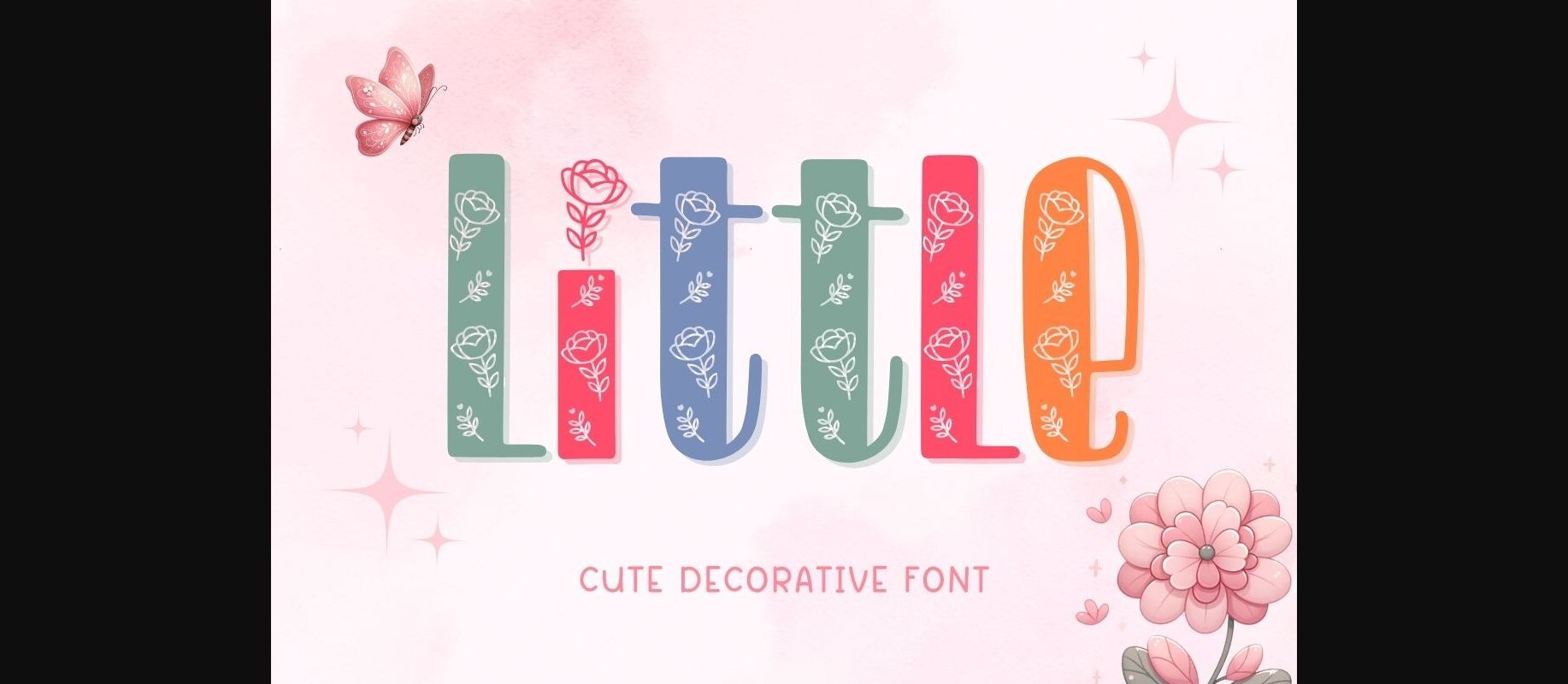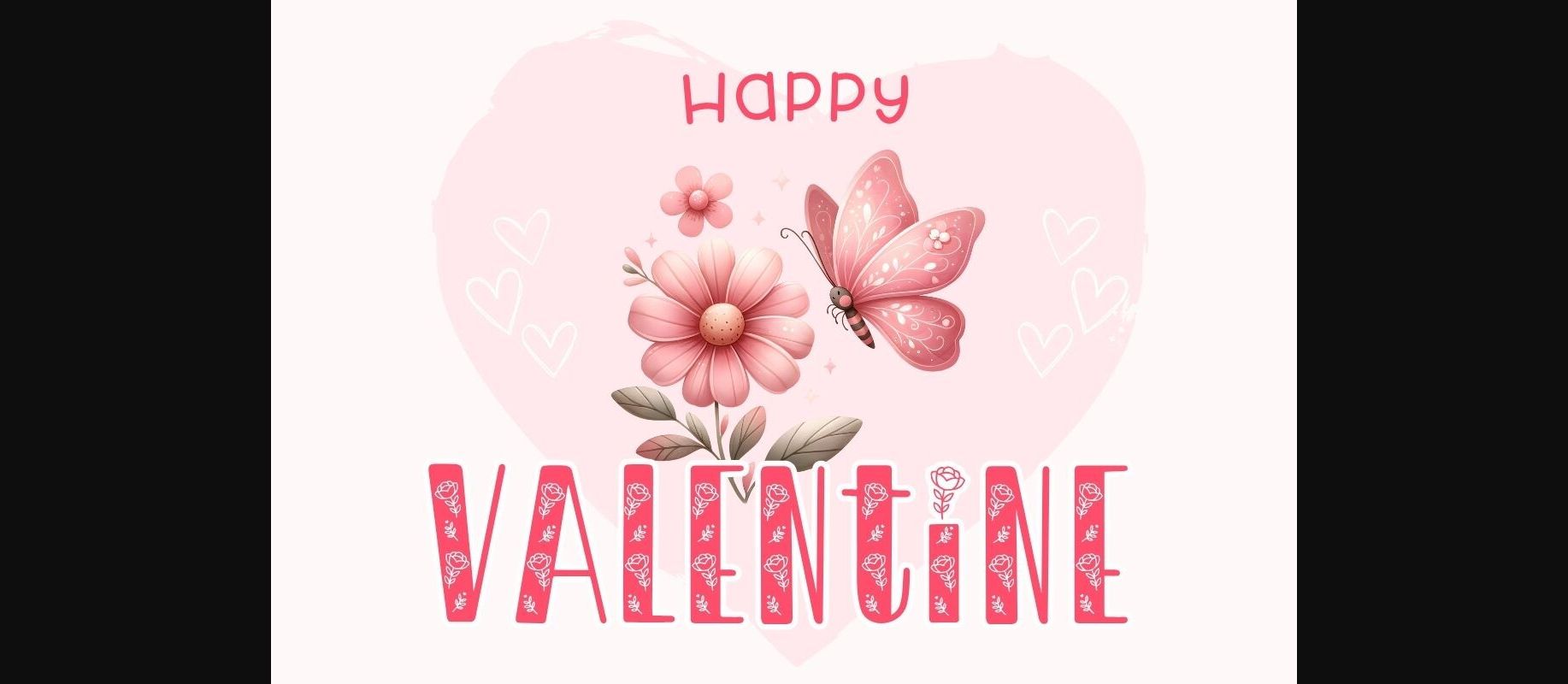
About Little Font
Little is a cute decorative font. This font uses cute Valentine’s elements silhouettes combined with handwritten fonts. This font has a quirky style. Perfect for creating a wide variety of new designs to match products such as banners, content, mugs, cards, shirts, stationery, social media posts, and more!